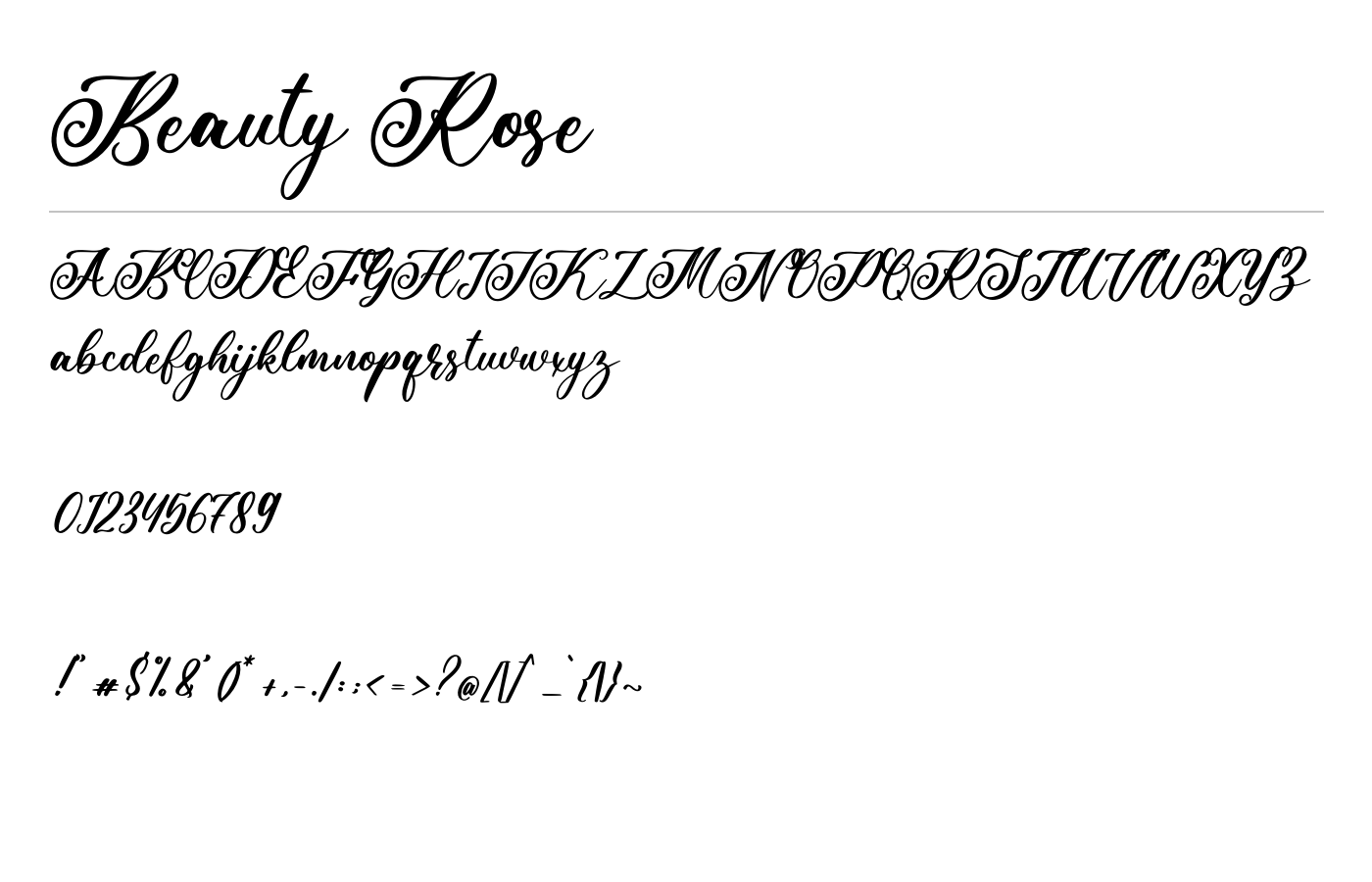
Beauty Rose is a graceful script font that combines elegant, flowing strokes with a delicate, handwritten feel. Its smooth curves and refined letterforms make it perfect for romantic and feminine designs, ideal for wedding invitations, beauty branding, and luxury packaging. This font's stylish and sophisticated personality brings a touch of charm and warmth to any project needing a classic yet modern script.
Beauty Rose Font
About Beauty Rose Font
| Font family | Beauty Rose Font |
| Designer | Novia Himatunnisa |